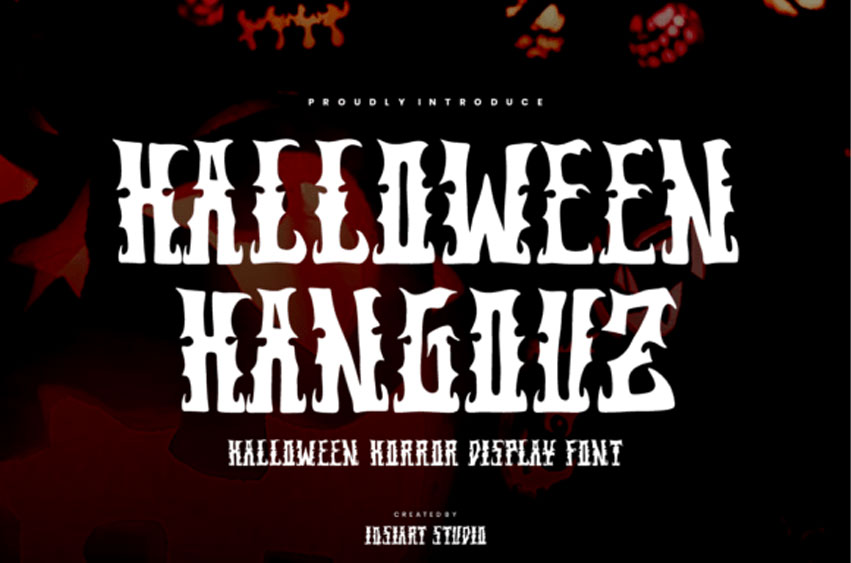
Halloween Hangouz Font
Halloween Hangouz Font is a horror display serif engineered for large, attention-grabbing titles. Its condensed proportions, towering cap height, and near-monoline weight create a tight, poster-ready rhythm, while mutant serifs splinter into blade-like spikes and wax-drip terminals that gnaw into the stems. Counters are gouged and irregular, producing a torn-paper silhouette that holds up at distance and glows on dark backdrops.
Halloween Hangouz alphabet behaves like an all-caps set with small-caps-style lowers, supported by lining numerals and essential punctuation, making stacking and centered layouts easy. Track it tight for maximum menace, pair with a clean grotesk for body copy, and deploy heavy color or gradient fills to amplify the cutout feel. Perfect for Halloween campaigns, haunted attraction branding, movie or game titles, posters, merch, packaging, and social thumbnails where theatrical dread and instant read are paramount.